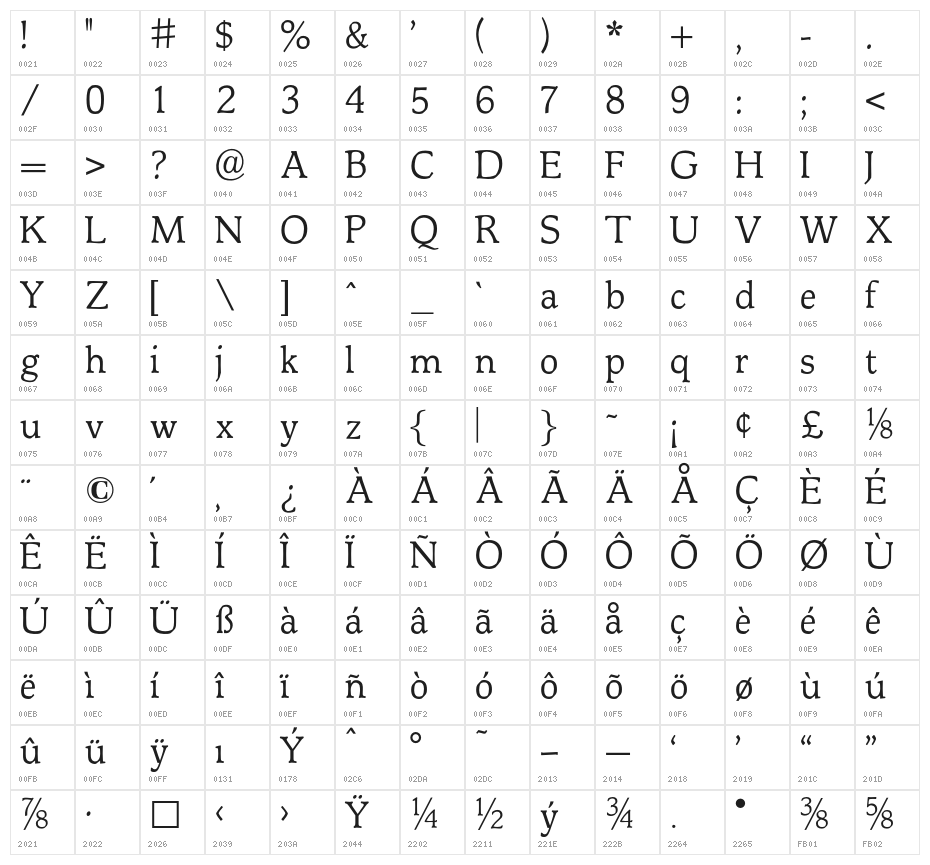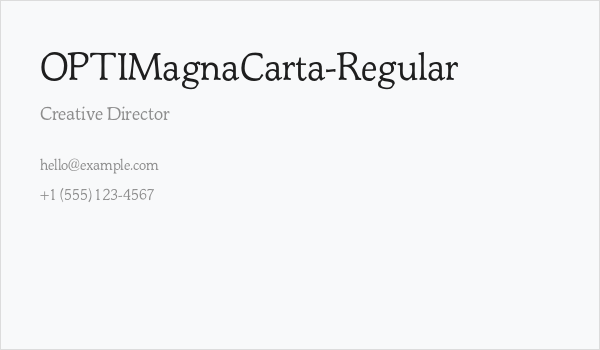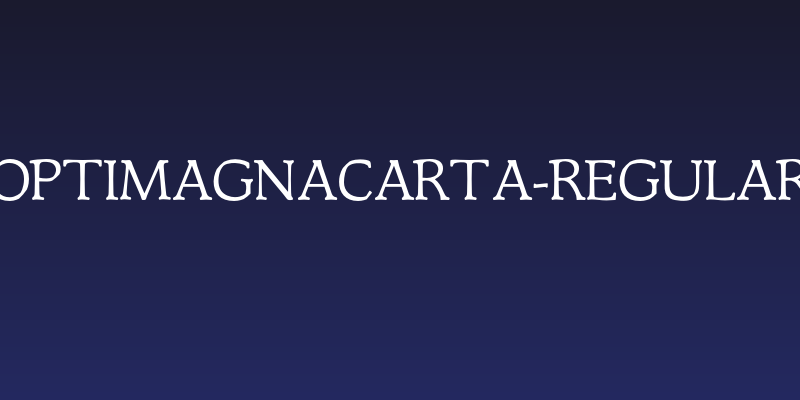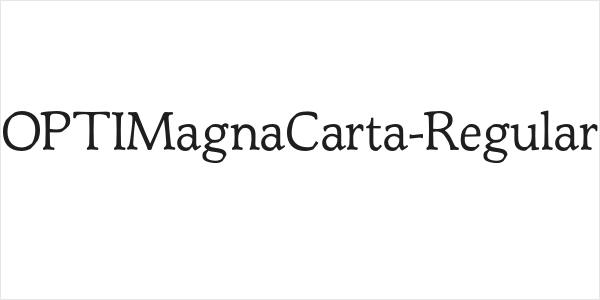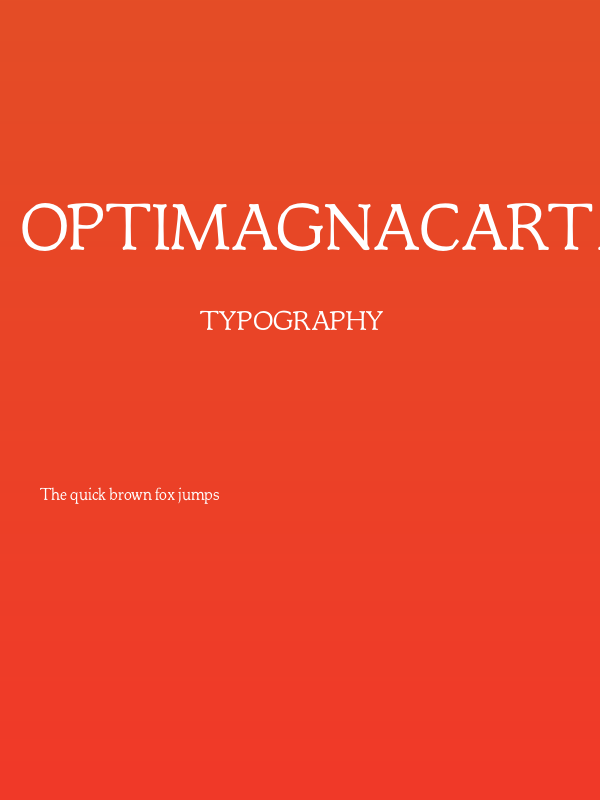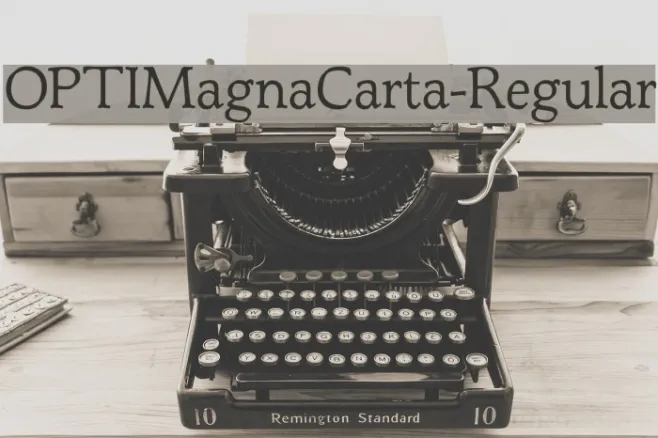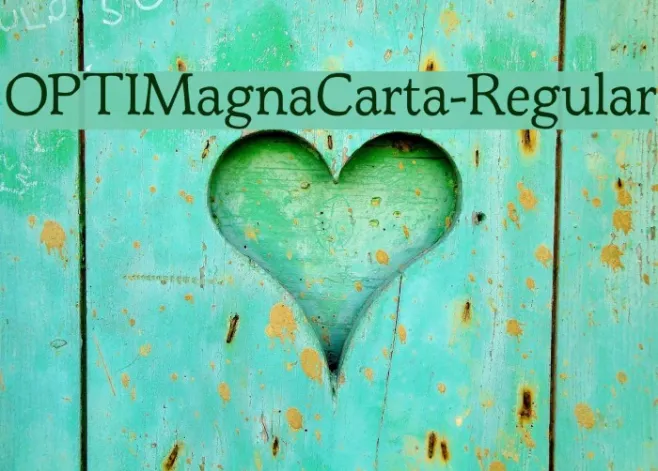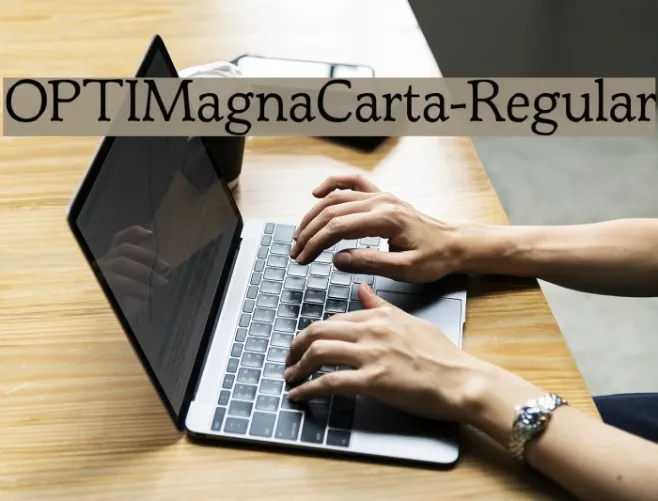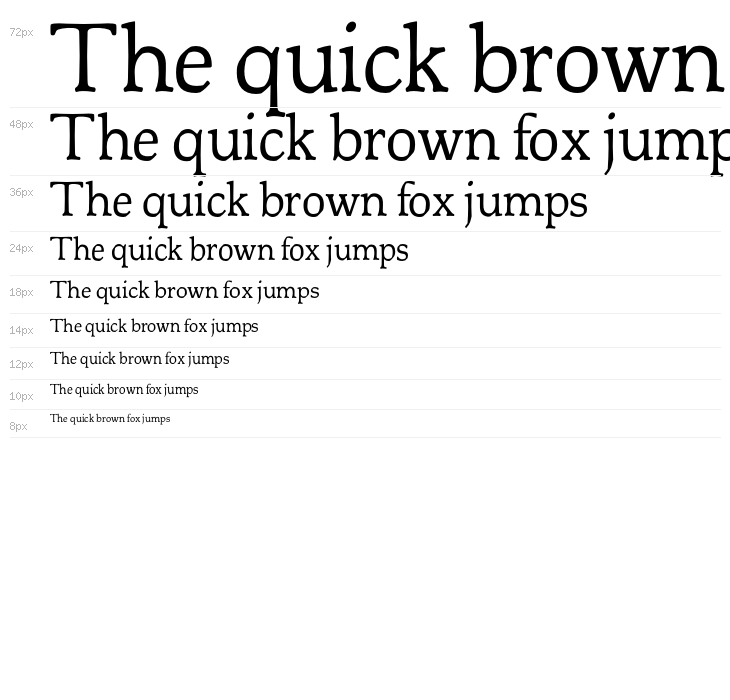
OPTIMagnaCarta-Regular Font
OPTIMagnaCarta-Regular Description
This font features a classic serif style with elegant and refined strokes. The uppercase letters are well-proportioned, with a slight contrast between thick and thin lines, giving it a sophisticated appearance. The lowercase letters maintain a consistent flow, with rounded edges that enhance readability. The numerals are clear and distinct, matching the overall aesthetic of the font. Special characters are designed to complement the letterforms, ensuring a cohesive look across all text elements. This font exudes a timeless charm, making it suitable for a variety of design applications.
| Proposed Projects | Ideal for book covers, formal invitations, editorial layouts, and branding materials. |